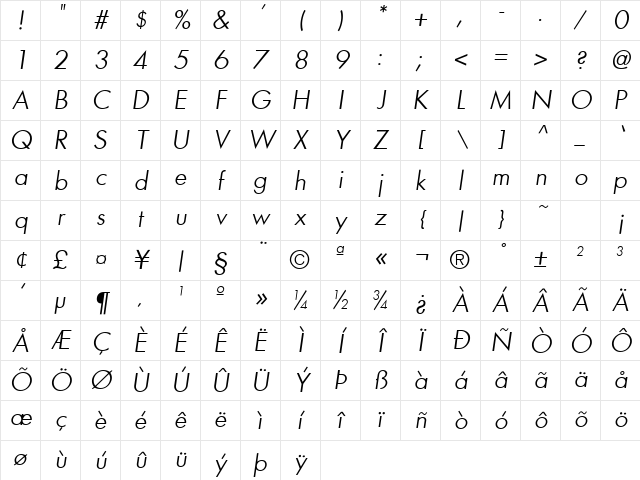
FutenaBook Oblique Free Font
FutenaBook Oblique
Design Context for FutenaBook
FutenaBook is a composed and adaptable typeface that performs quietly and consistently across a wide range of design contexts. The slanted form adds forward momentum and visual energy.
Pro Tip: Use FutenaBook for emphasis, pull quotes, and subheadings where its slanted energy can add rhythm to the layout.